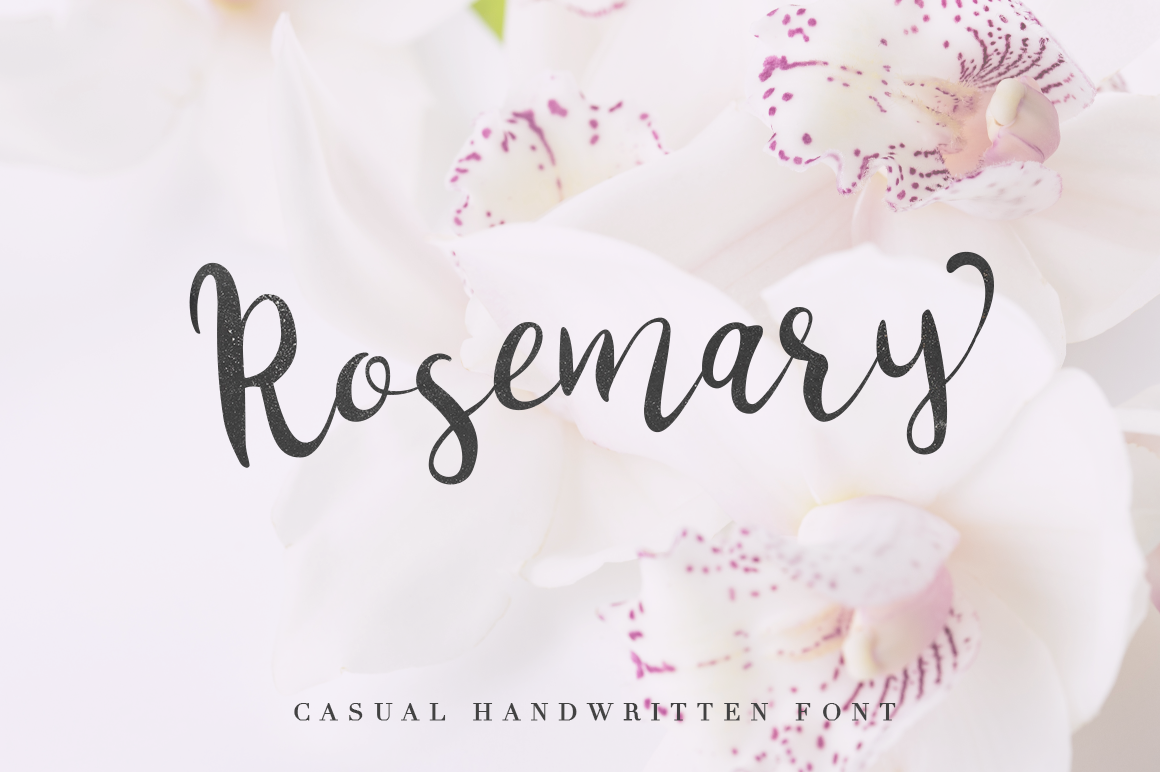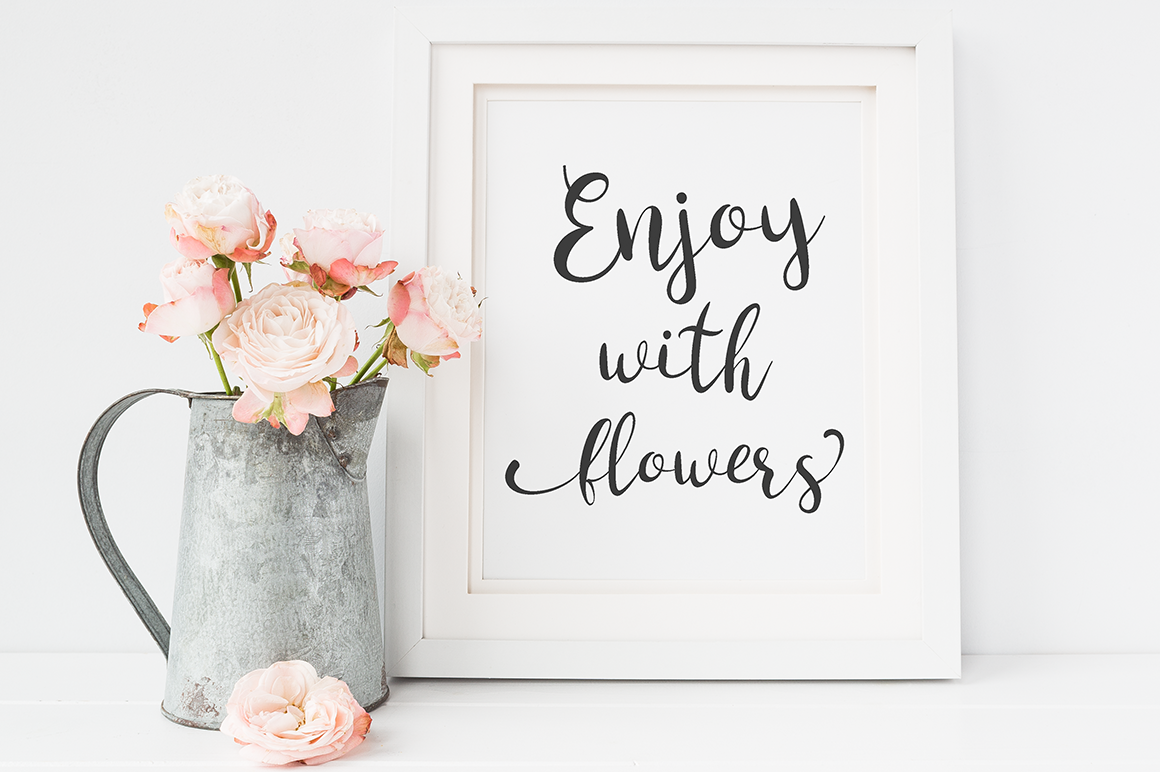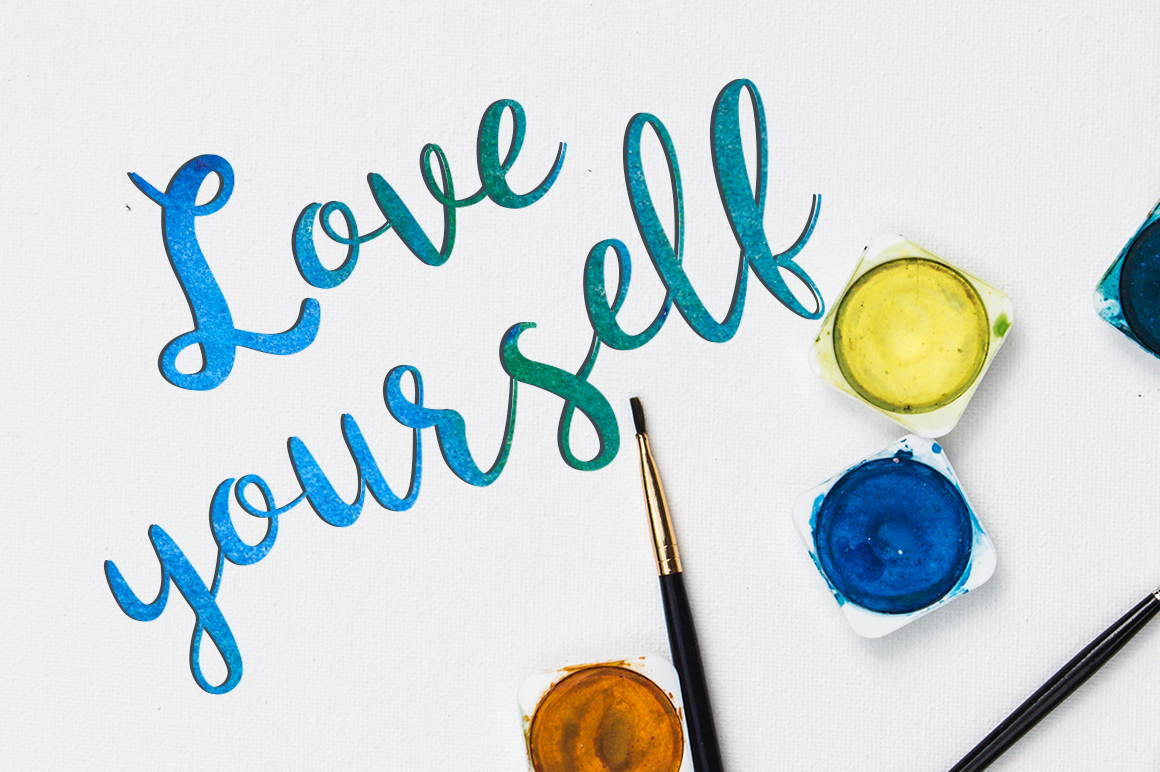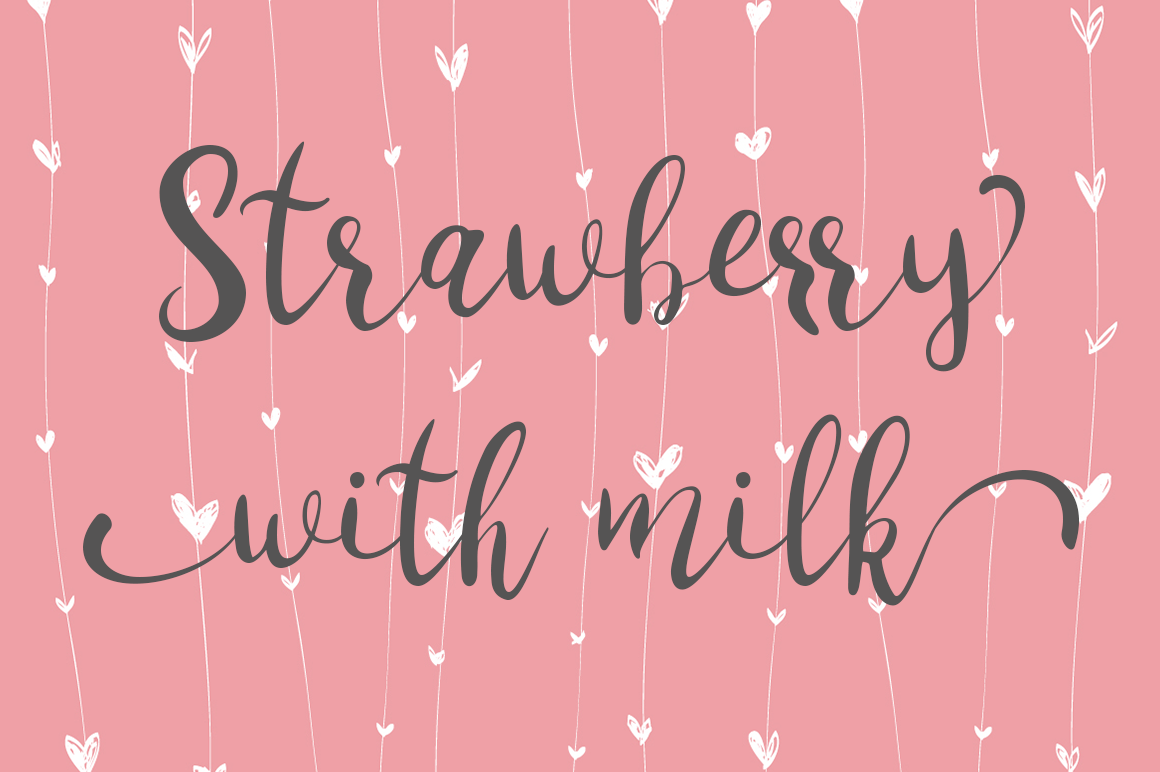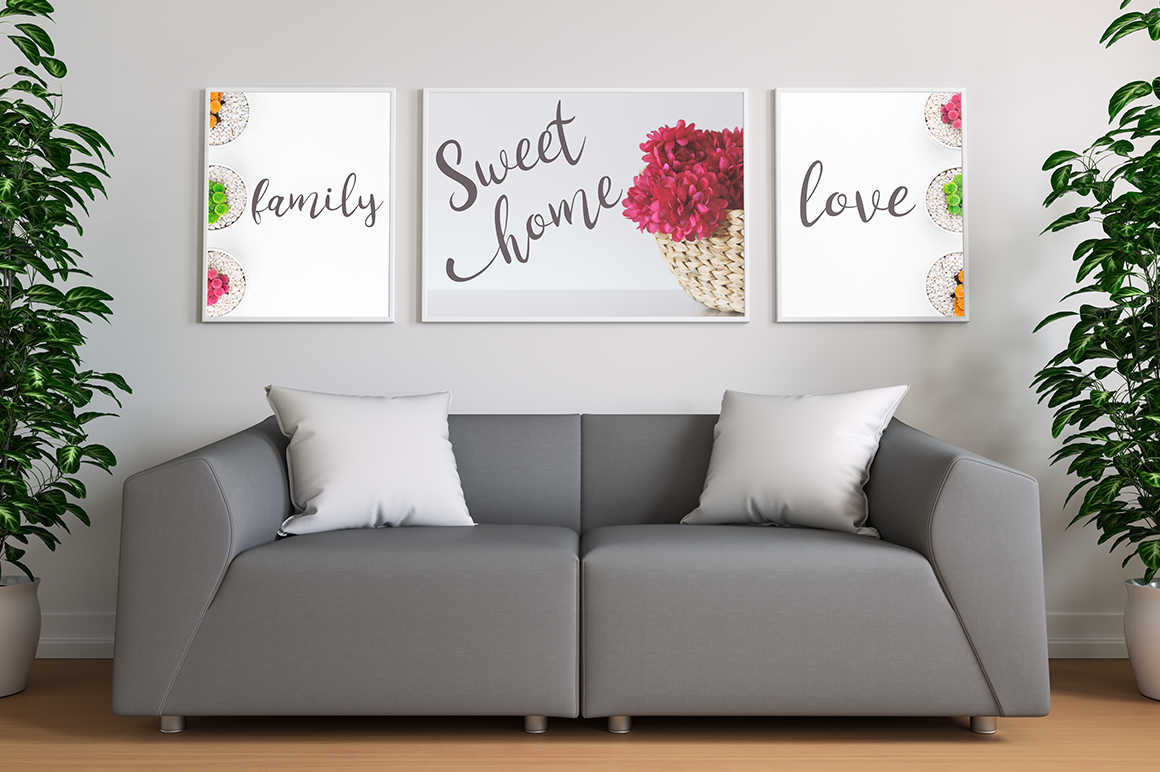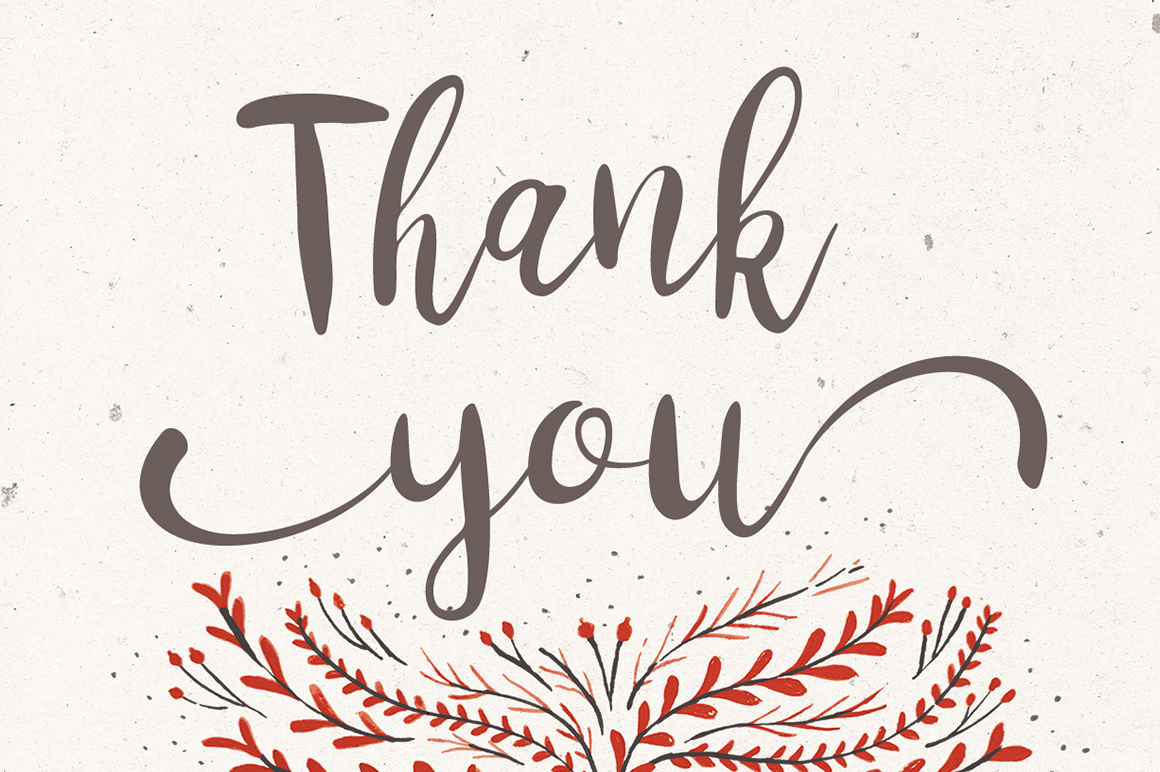
Rosemary Font
About Rosemary Font
Rosemary is a lovely and friendly modern handwritten script. This font looks wonderful in invitationals and generally adds some romance to your designs and other creative projects.